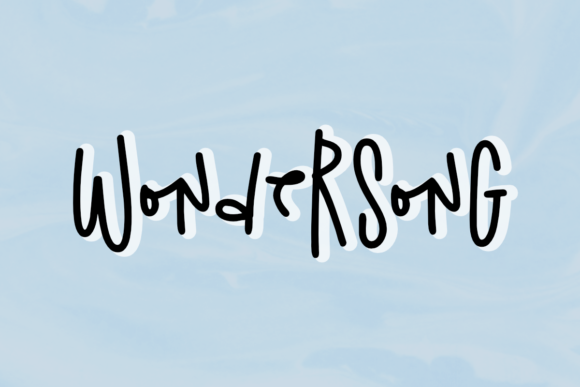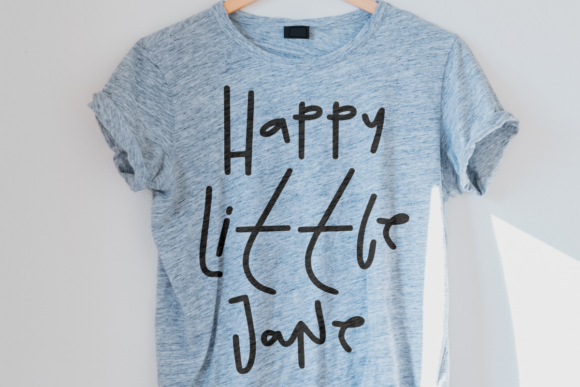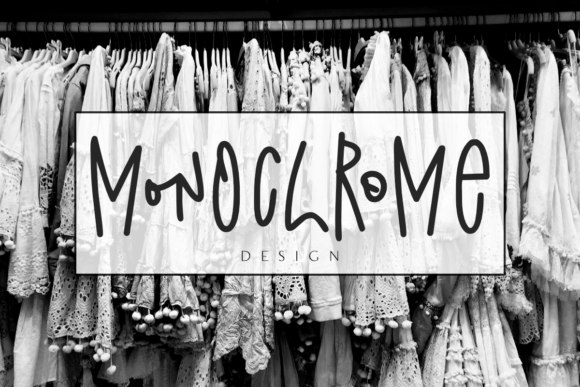
About Wondersong Font
Wondersong is a cute and asymmetrical handwritten font. Whimsical and a bit quirky, this font will brighten up each of your designs. Add it confidently to your projects, and you will love the results.